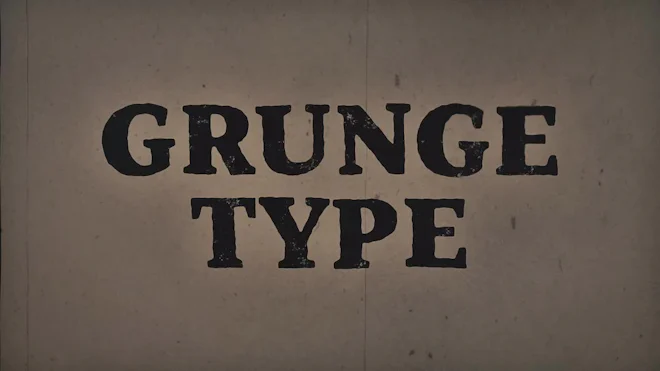
This stock motion graphics video pack includes 36 animated grunge letters and numbers on a transparent alpha channel for easy drag and drop. Resolution is 2160x2160.